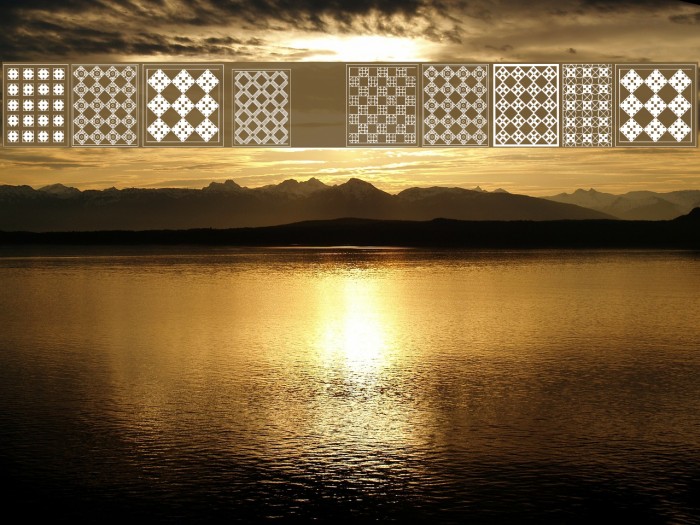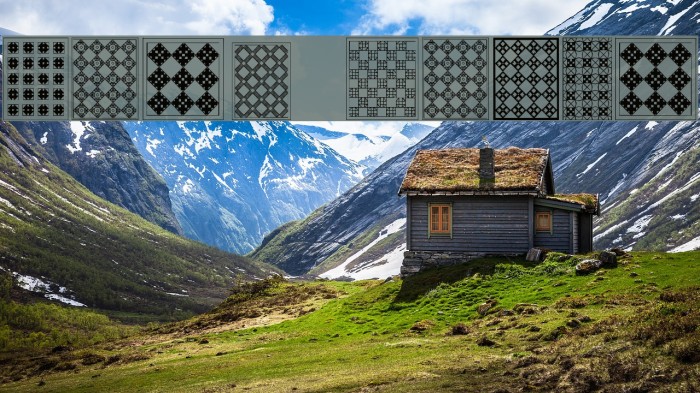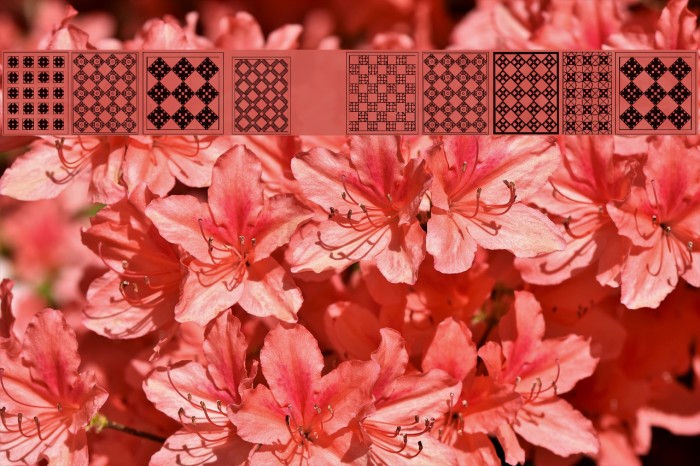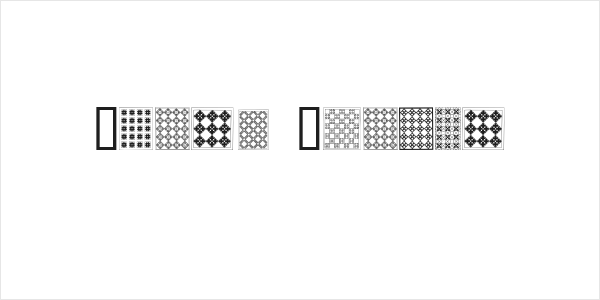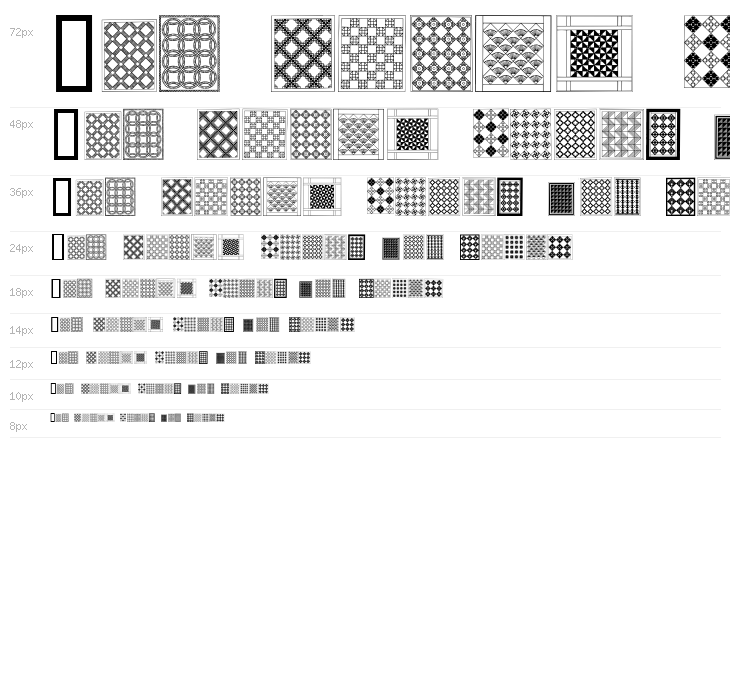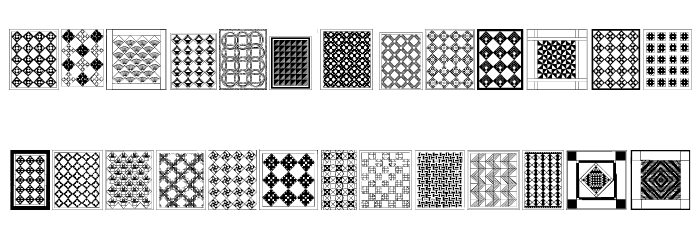
Amish Quilts Font
Amish Quilts Description
A decorative display font featuring uppercase and lowercase letters as bold, rectangular outlines, with numerals and symbols rendered as intricate quilt-like patterns. The style is geometric and highly ornamental, evoking traditional quilt block designs.
| Overall Style | Decorative, Folk-inspired, Geometric |
| Use Case | Headlines, Posters, Logos, Crafts |
| Proposed Projects | Craft projects, textile branding, event posters, childrenΓ’β¬β’s books, decorative headlines. |